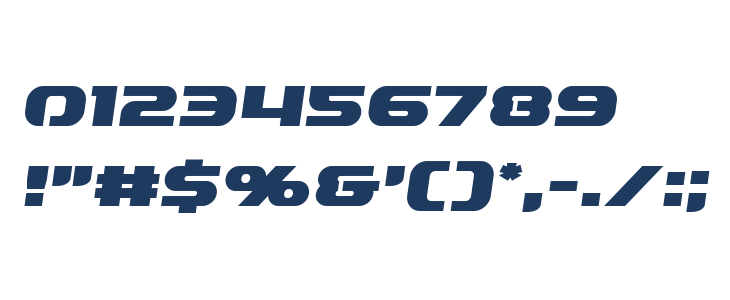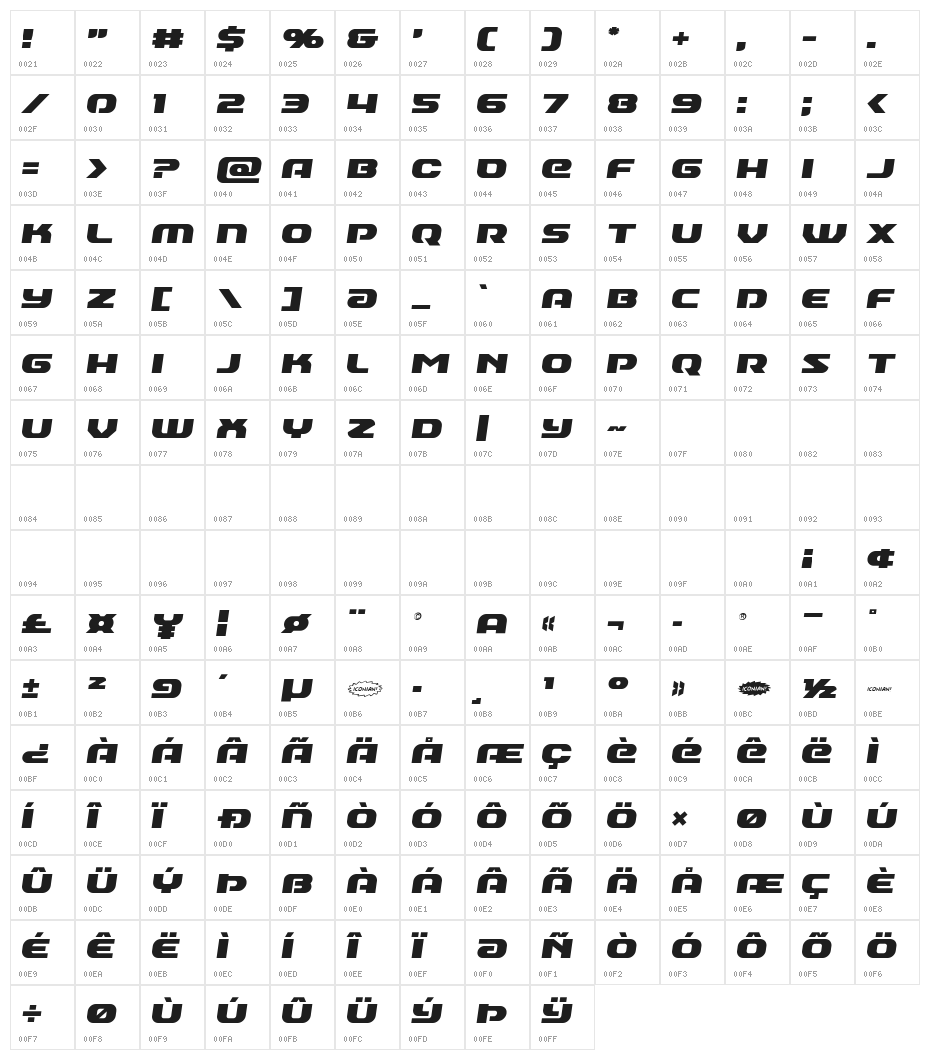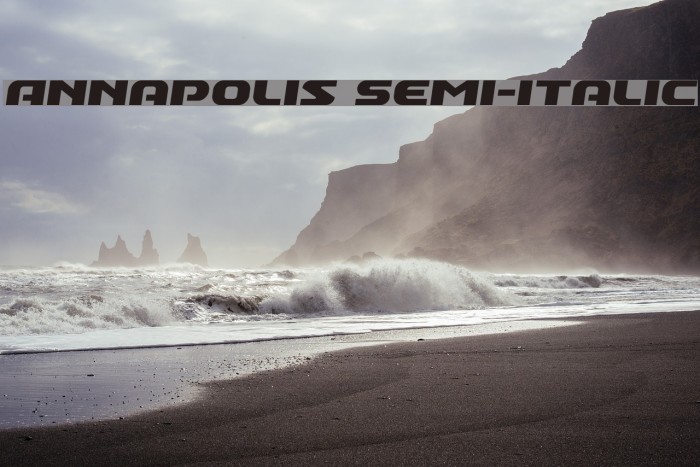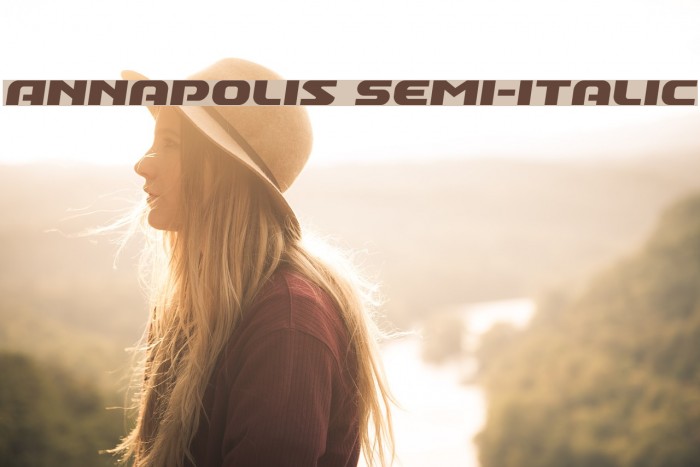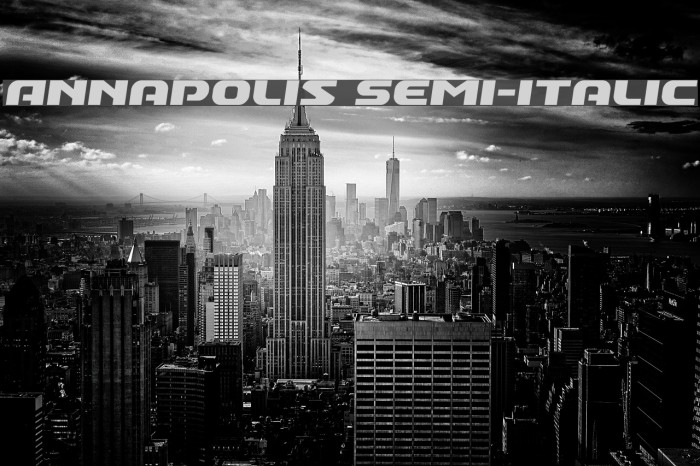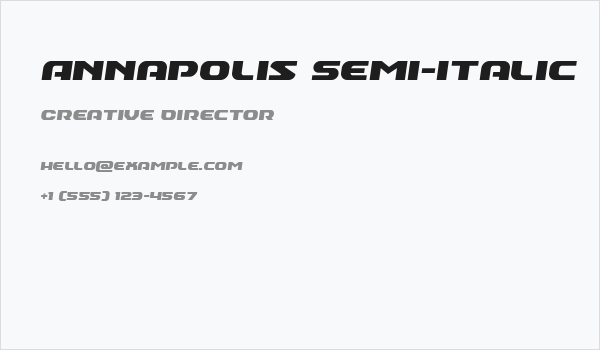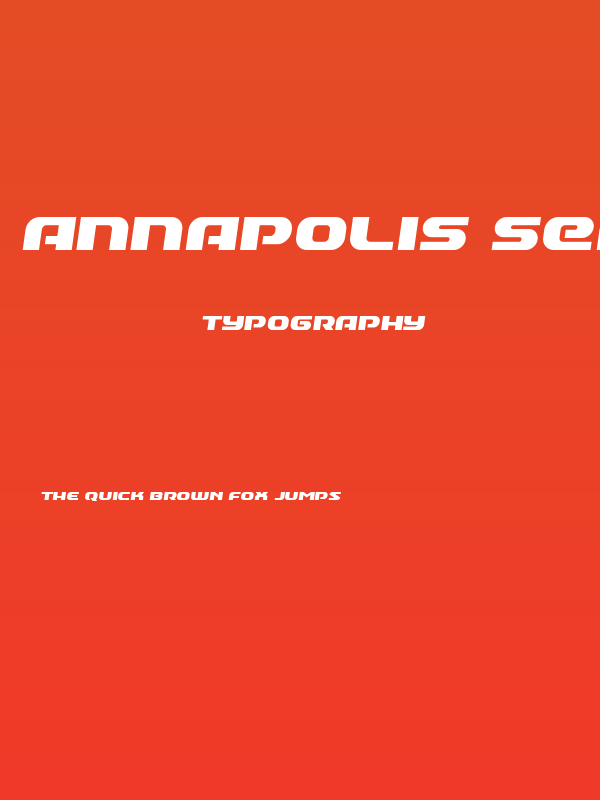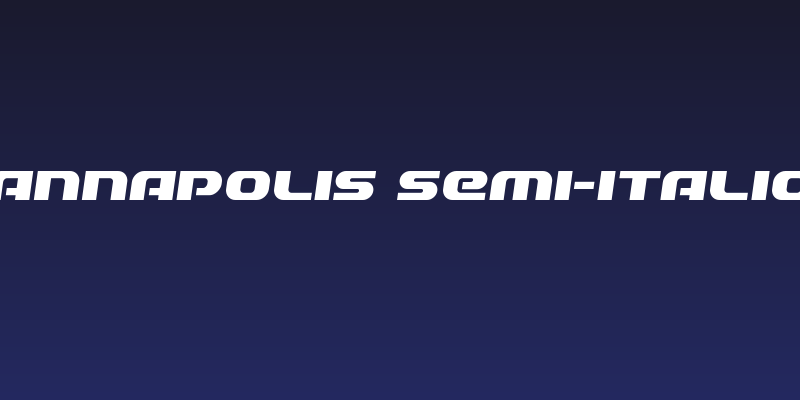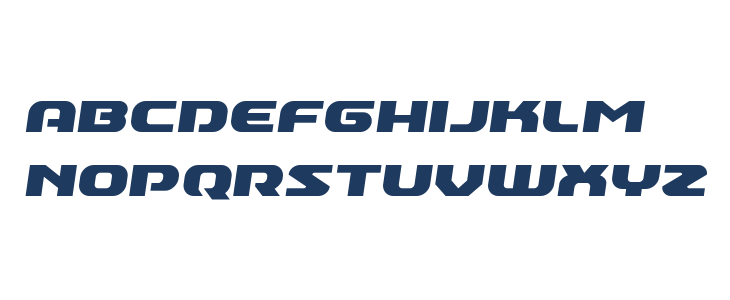
Annapolis Semi-Italic Font
Annapolis Semi-Italic Description
This font features a bold and dynamic style with a semi-italic slant, giving it a sense of movement and energy. The characters are wide and robust, with a futuristic and sporty appearance. The strokes are thick and consistent, providing a strong visual impact. The design includes unique angular cuts and curves, adding a modern and edgy feel. The numbers and special characters maintain the same boldness and style, ensuring uniformity across all elements.
| Proposed Projects | Ideal for sports branding, automotive designs, tech-related projects, and dynamic headlines. |